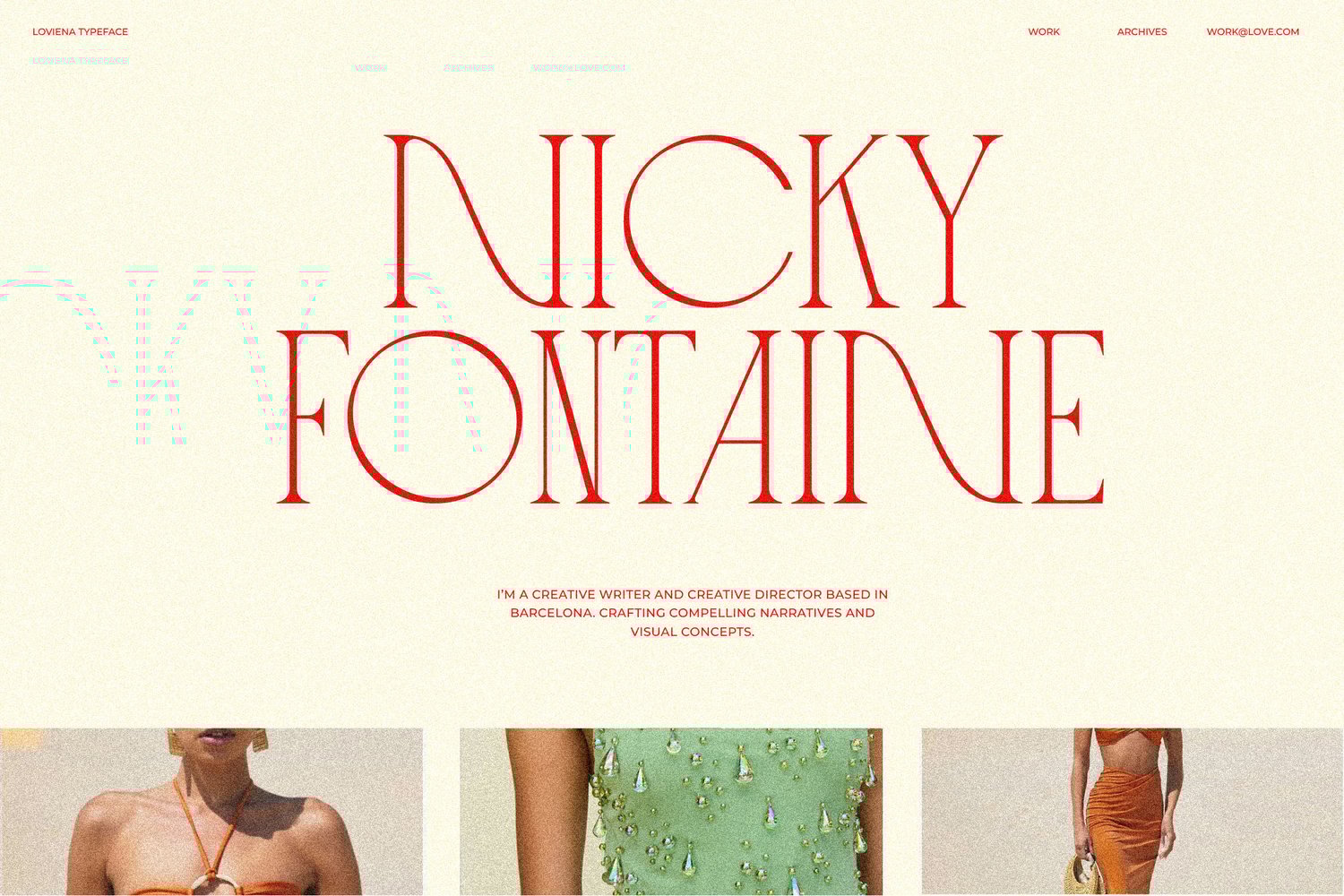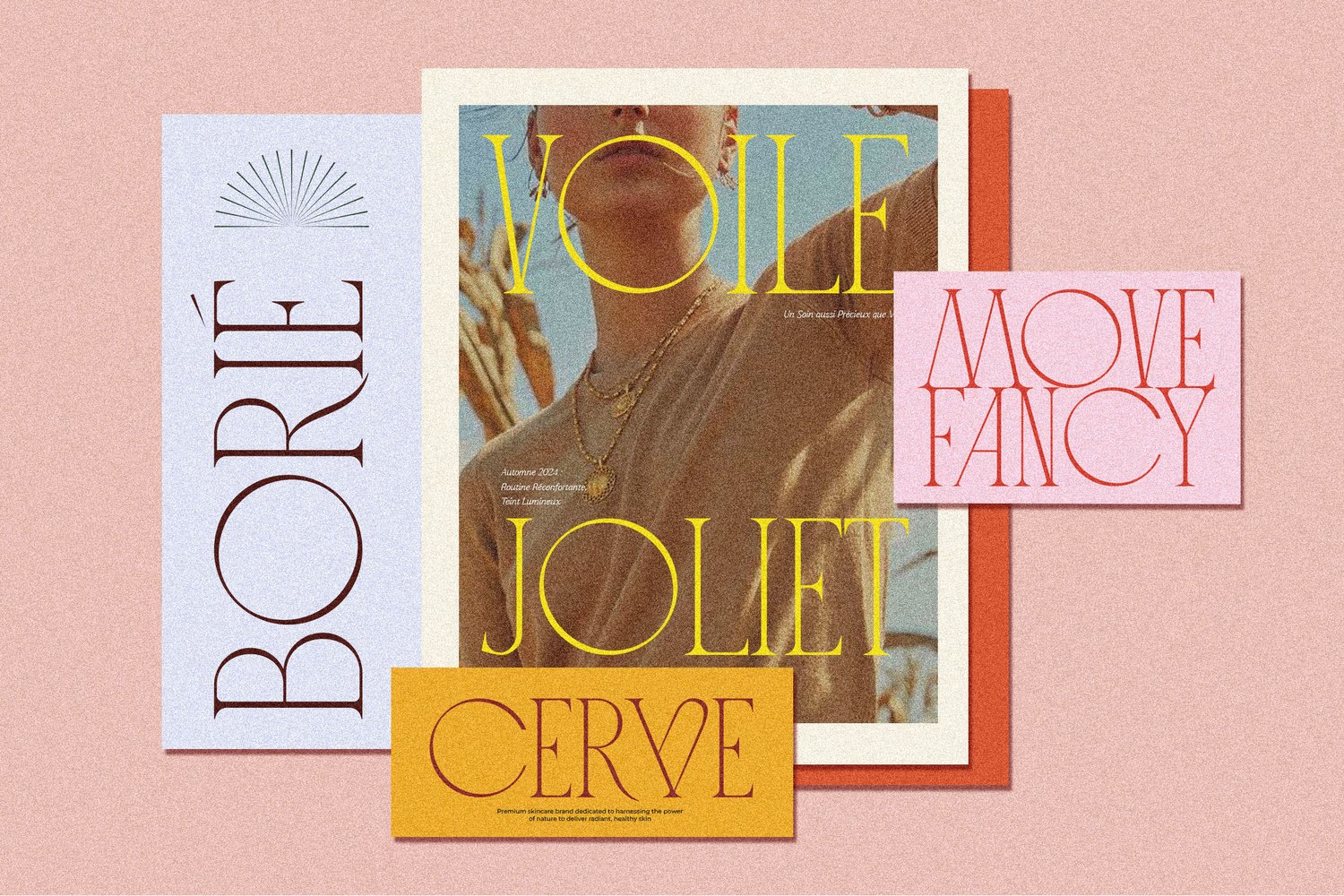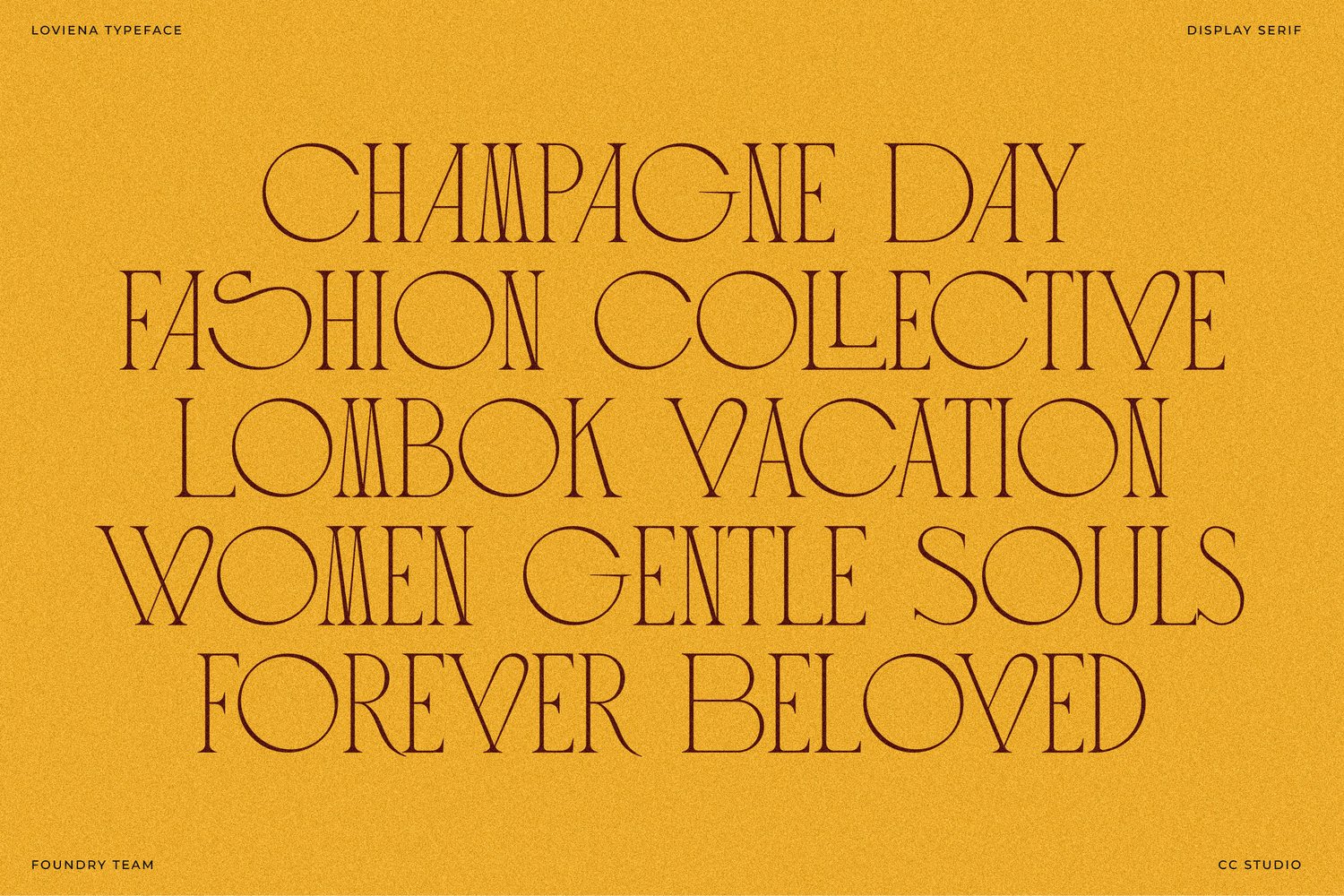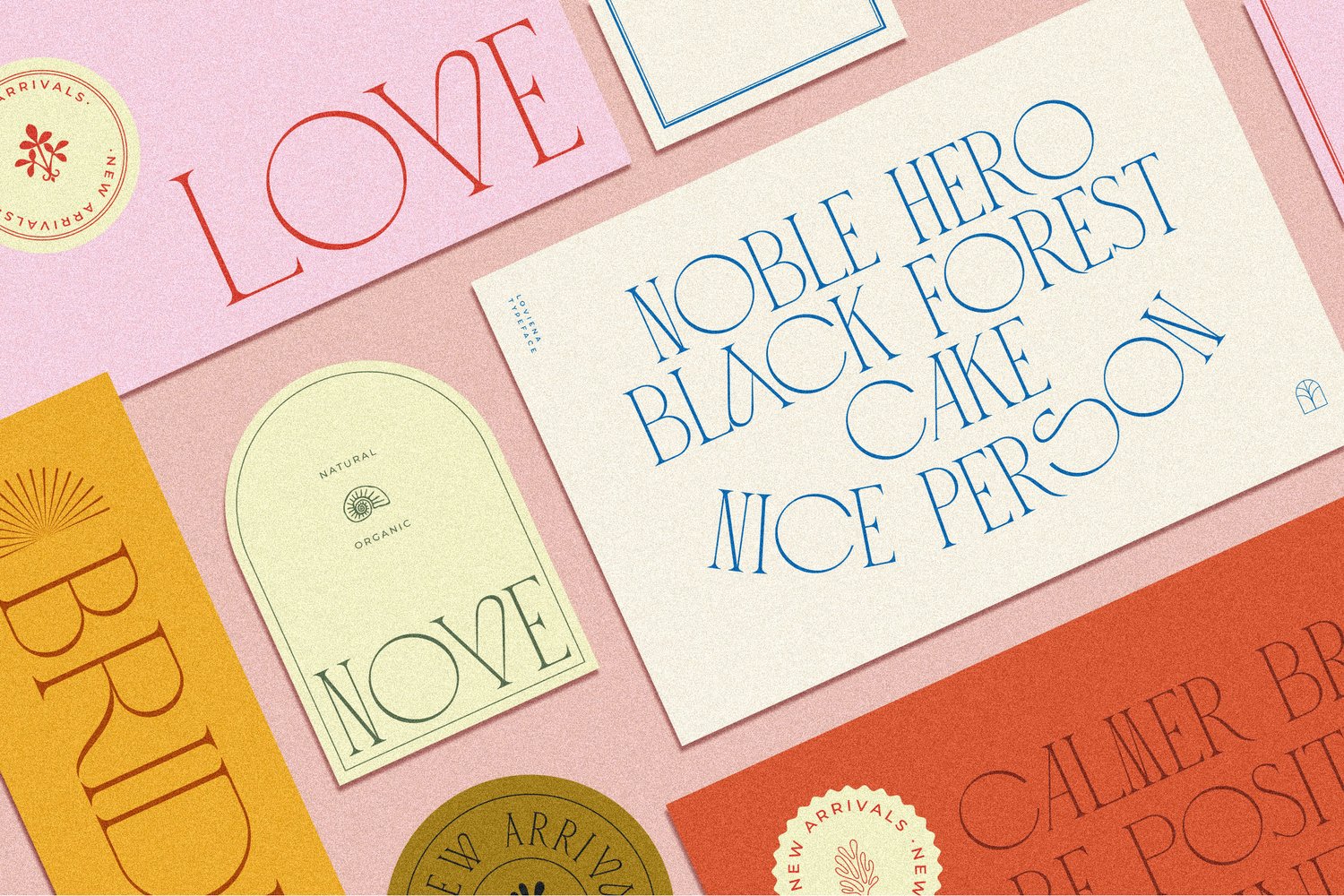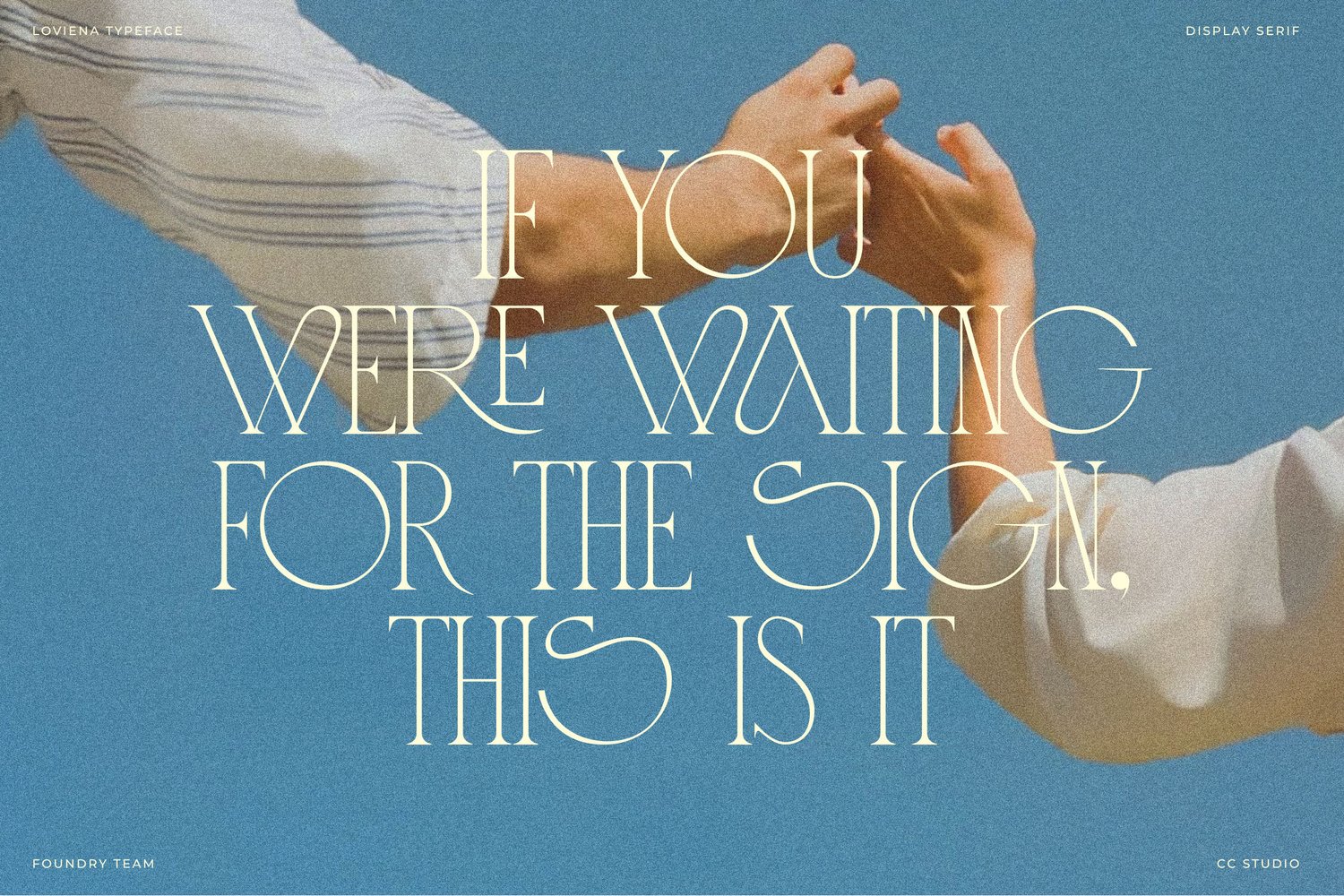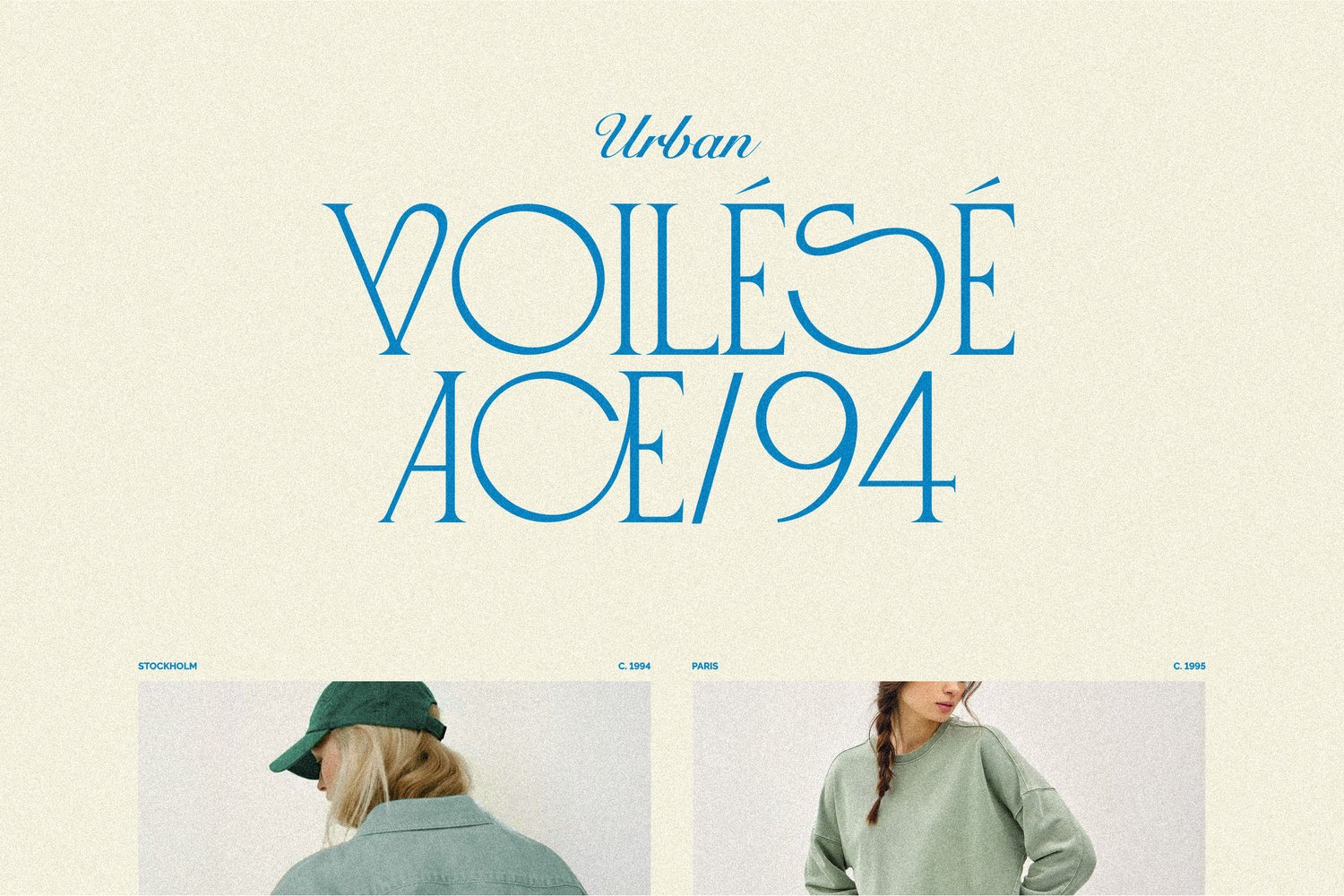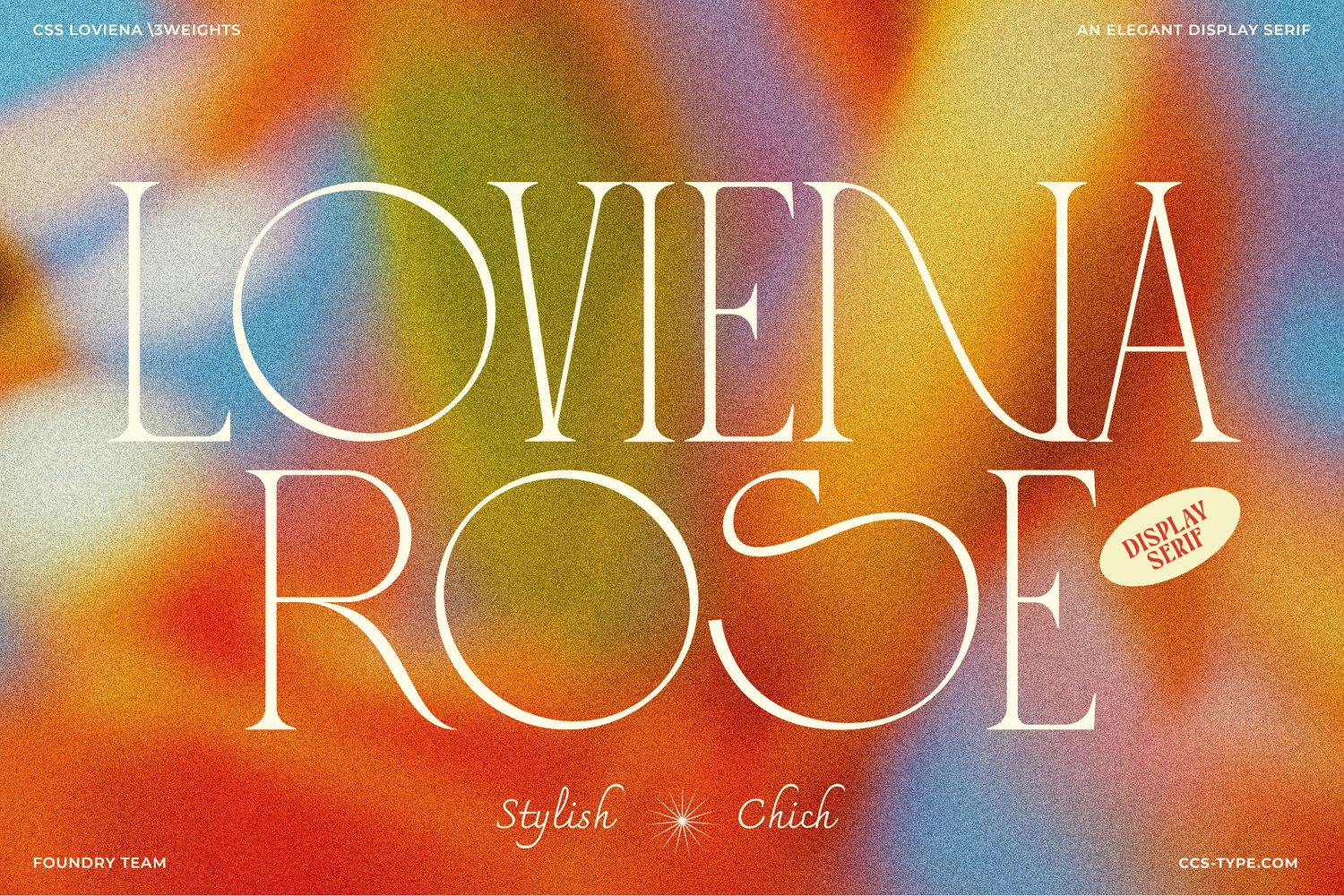
Loviena Rose - Stylish Serif
Introducing Loviena Display Serif, a font that embodies elegance with a playful twist. Designed in an all-caps style, Loviena offers a refined balance of classic sophistication and modern charm, evoking the luxurious feel of a tropical summer getaway. With its array of stylish alternates and ligatures, this versatile typeface adds a touch of uniqueness and creativity to headlines, titles, logos, and layouts. Available in three weights—Regular, Semibold, and Bold—Loviena is perfect for designers seeking a timeless yet fun option to elevate their projects with a fresh, feminine flair.
- 3 Weights font
- Stylistic Alternates & Ligatures
- Multilingual